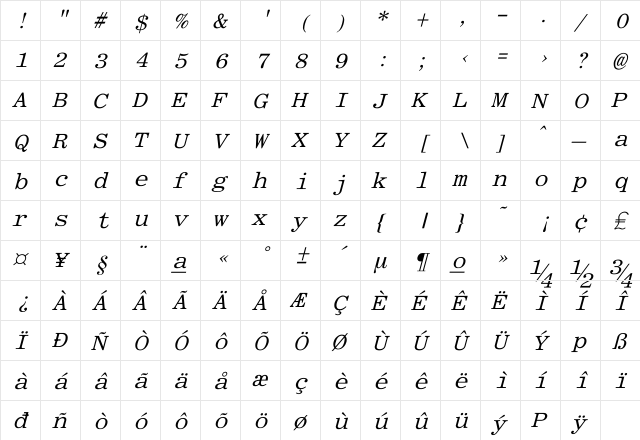
Asphalt Fixed Italic
Design Context for Asphalt Fixed Typeface
Asphalt Fixed is a composed and adaptable typeface that performs quietly and consistently across a wide range of design contexts. The slanted form adds forward momentum and visual energy.
Pro Tip: Try Asphalt Fixed for annotation and caption copy alongside an upright companion — the contrast in angle creates a dynamic but ordered typographic system.